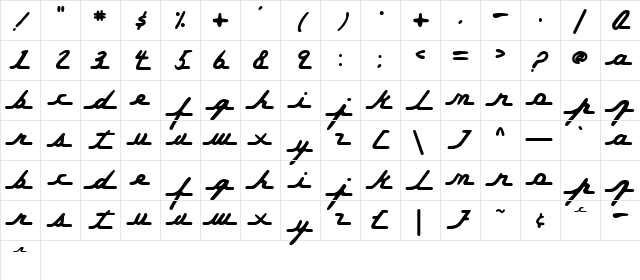
Permanent Waves Regular Free Font
Permanent Waves Regular
Design Context for Permanent Waves
Permanent Waves is a composed and adaptable typeface that performs quietly and consistently across a wide range of design contexts.